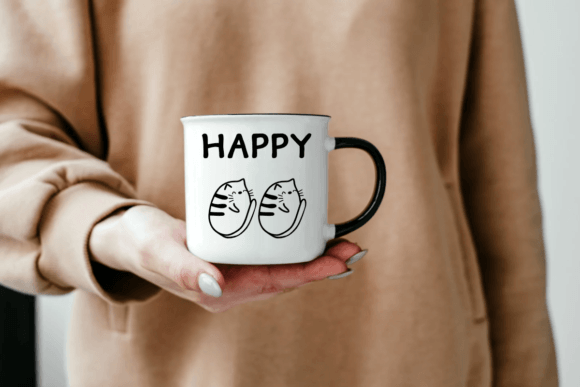
Cute Little Cat Font
Cute Little Cat is an adorable dingbat font featuring cats in various cute positions. Perfect for adding a playful touch to your projects, this font is sure to bring a smile to your face. Whether you’re creating greeting cards, posters, or anything else, Cute Little Cat adds a charming element that cat lovers will adore.